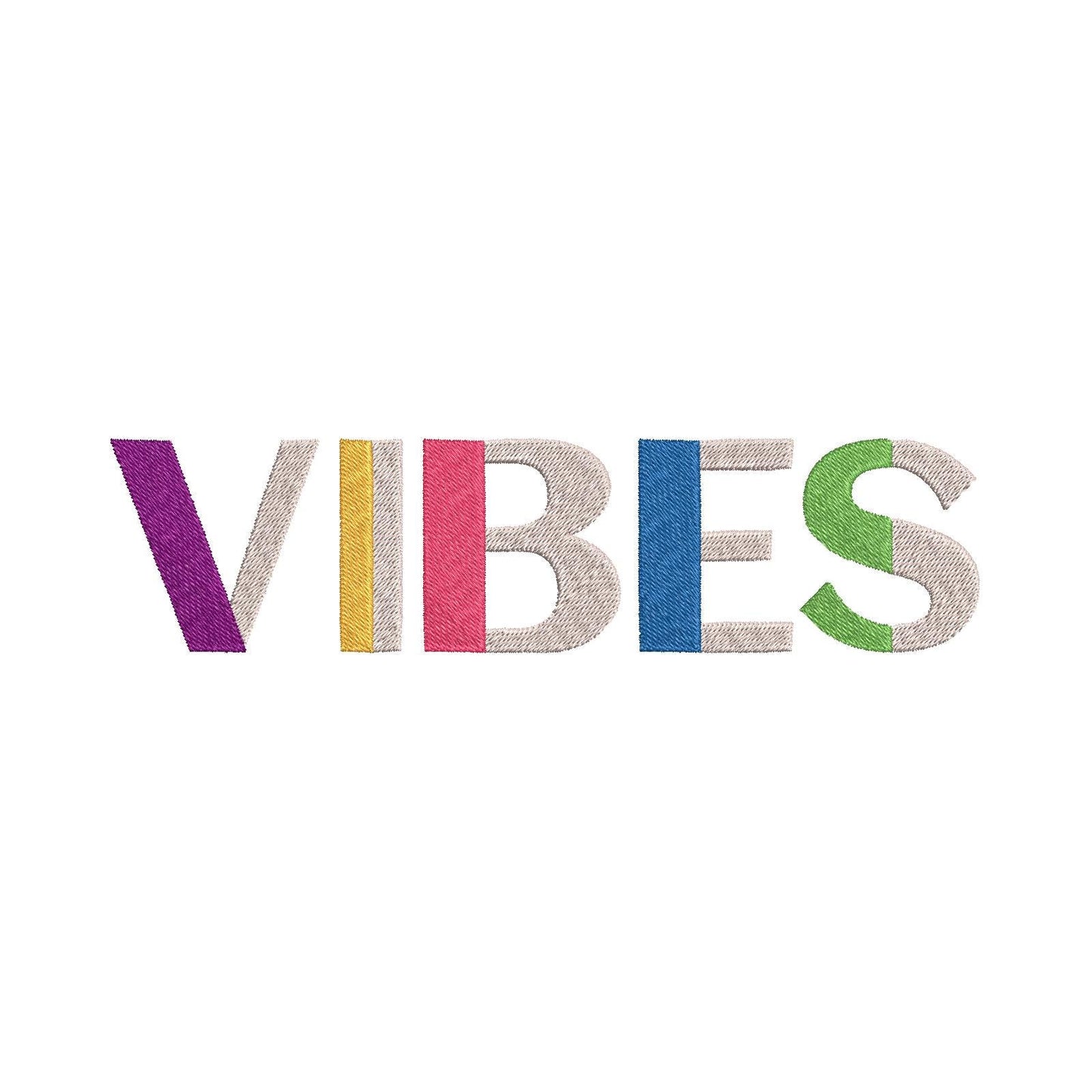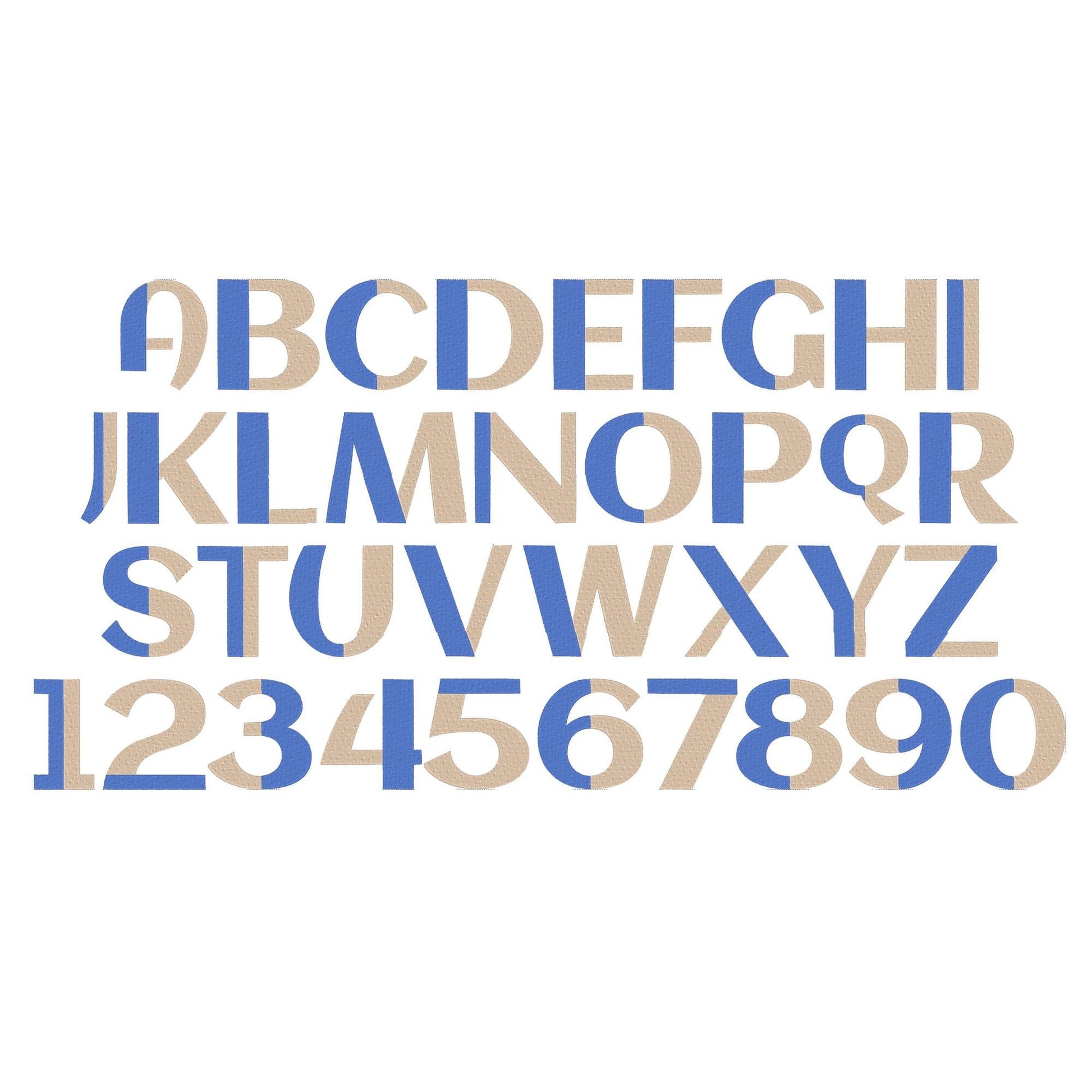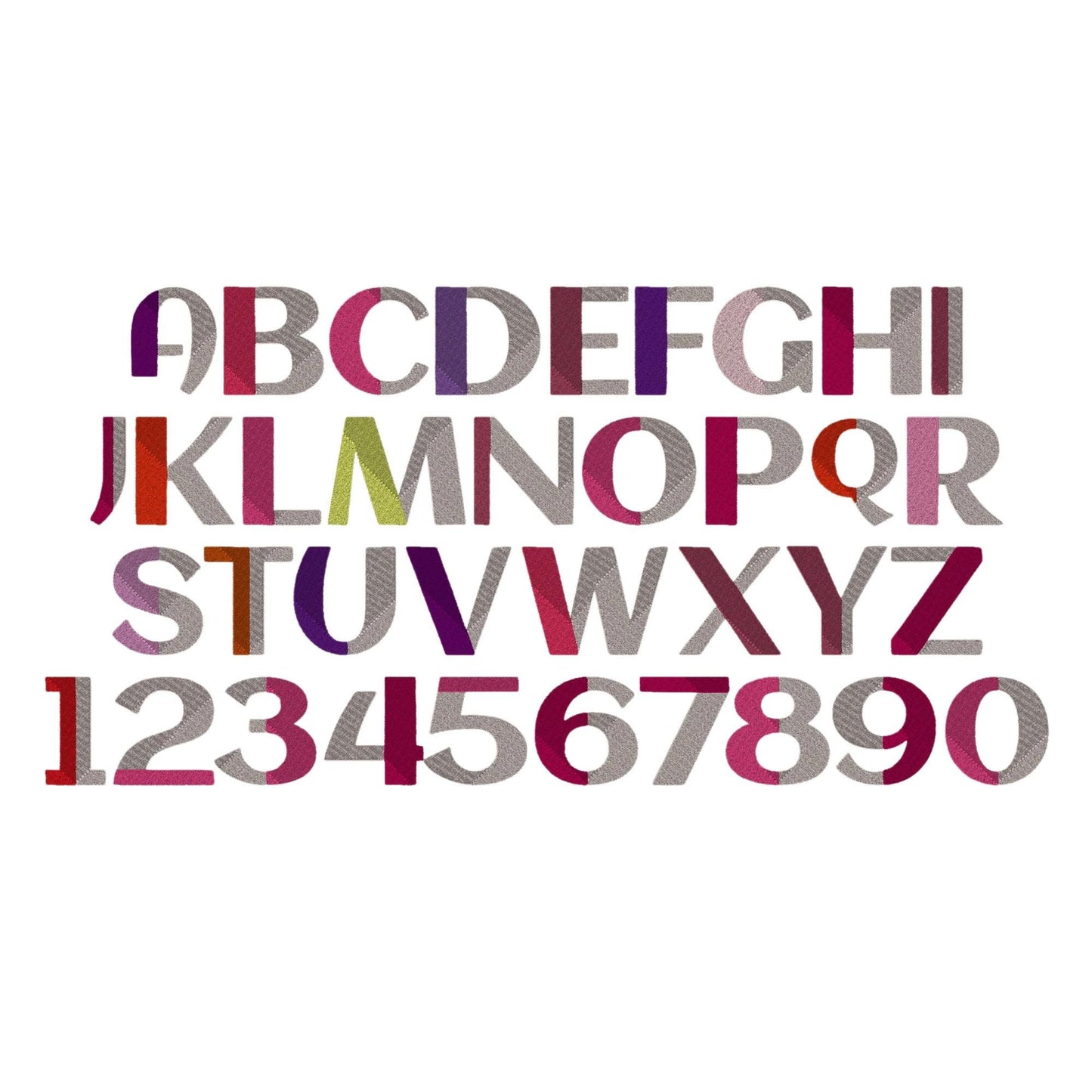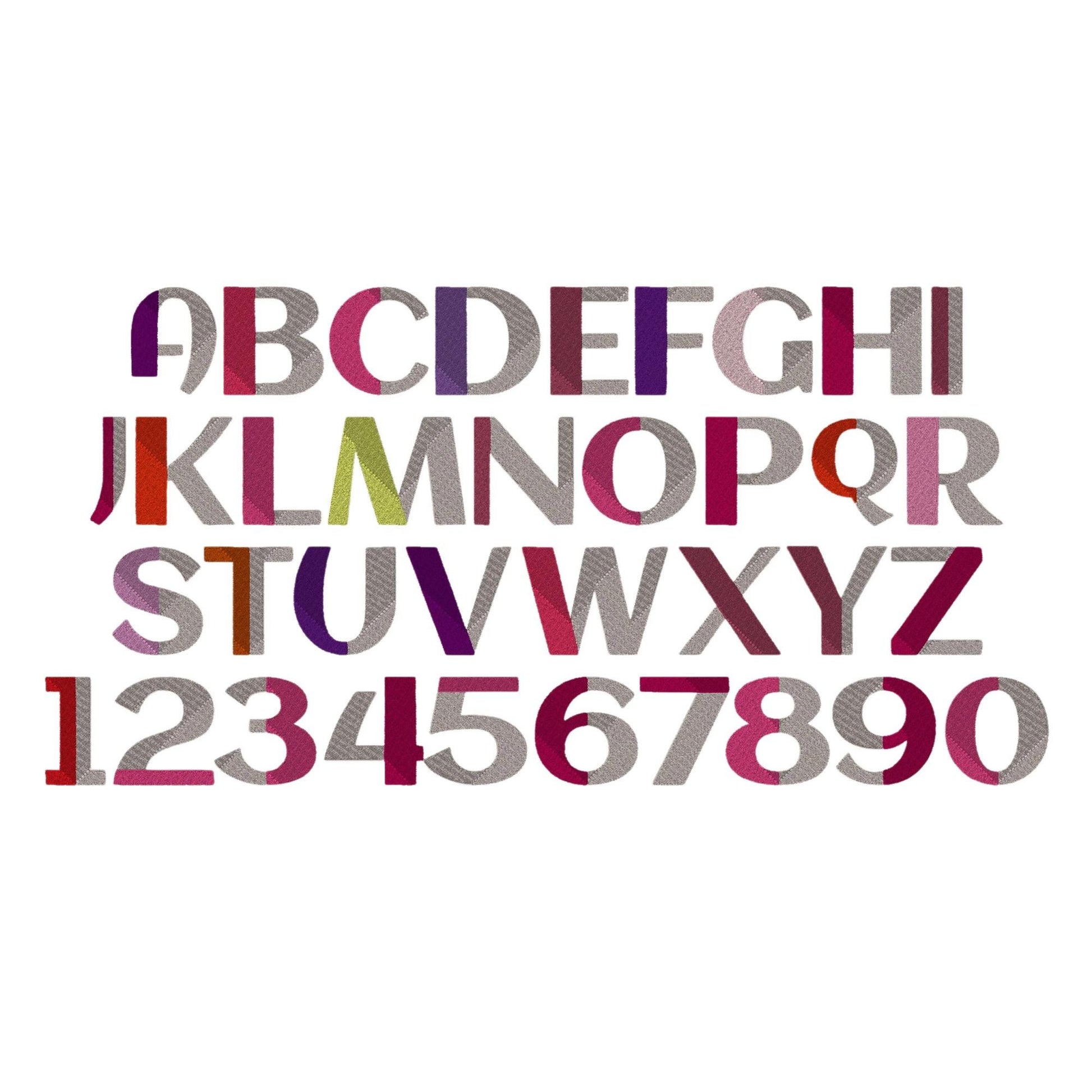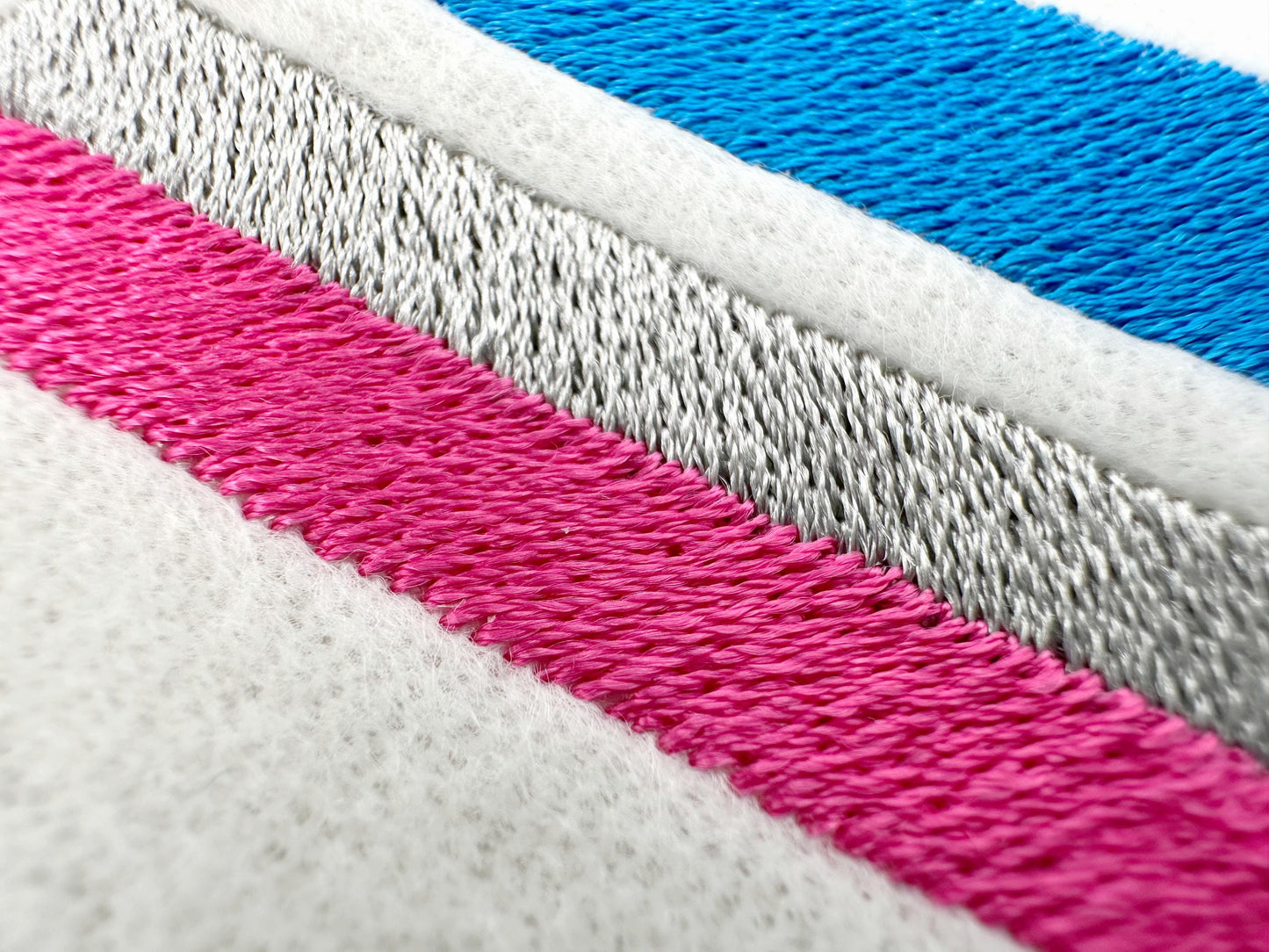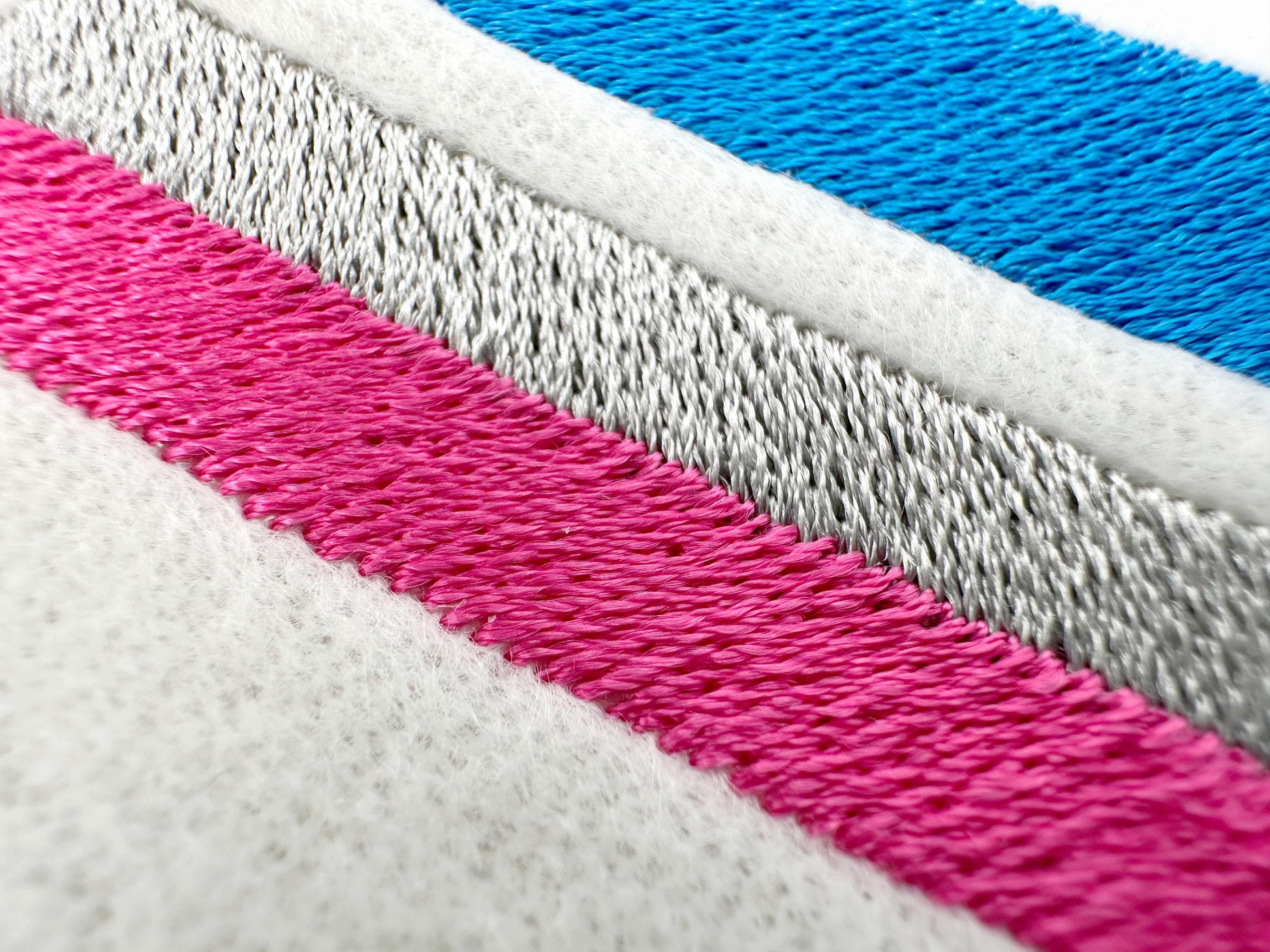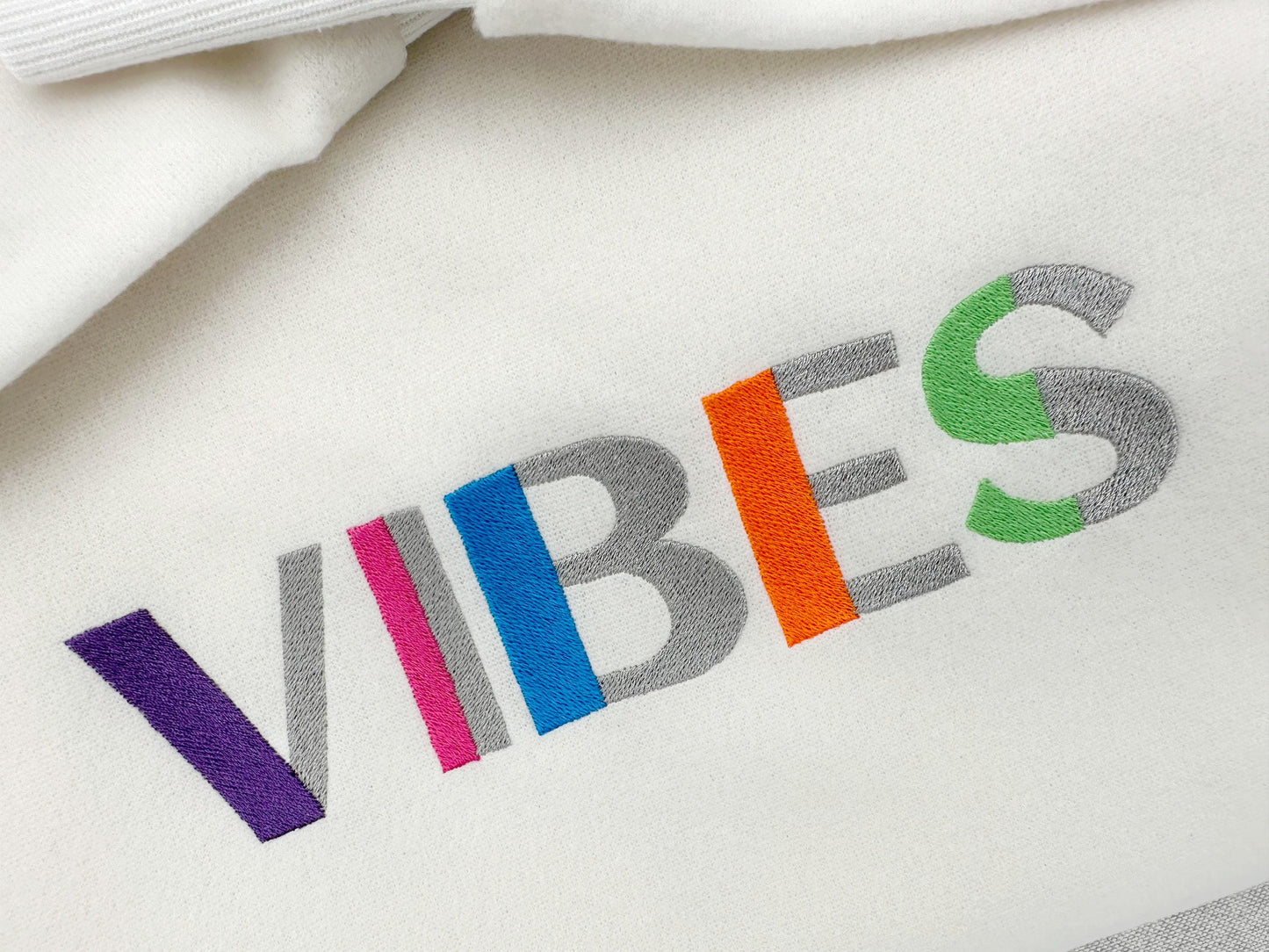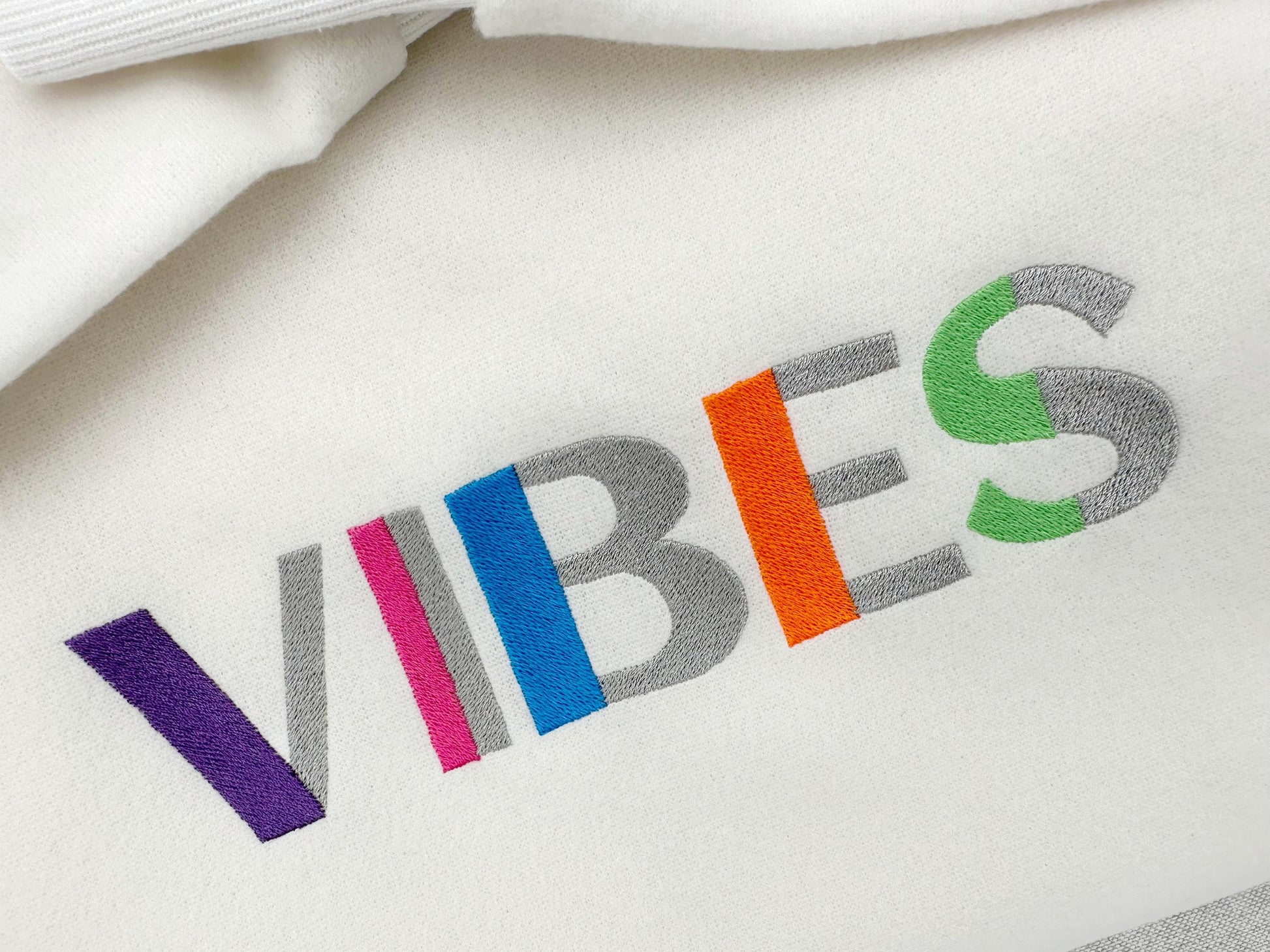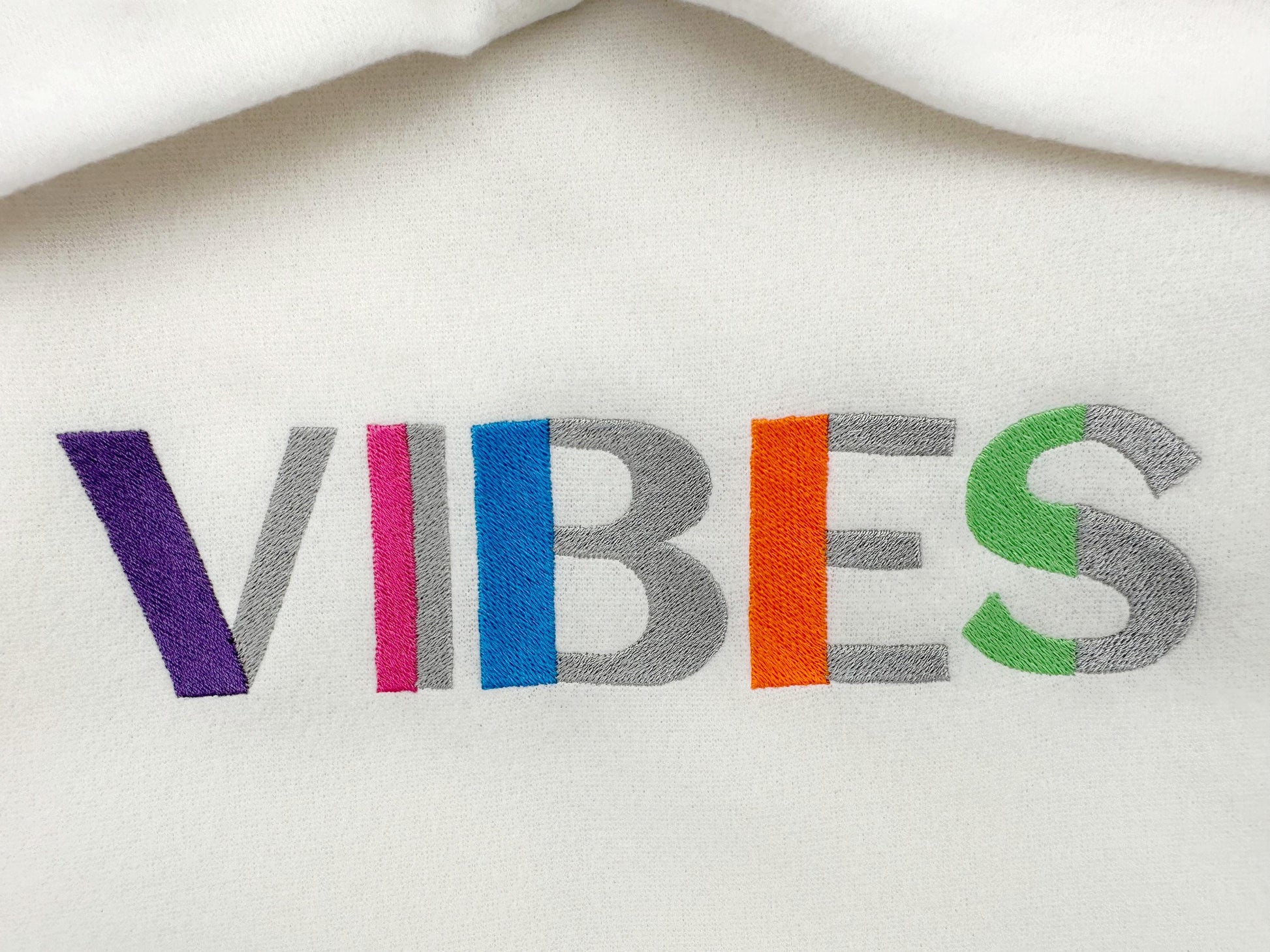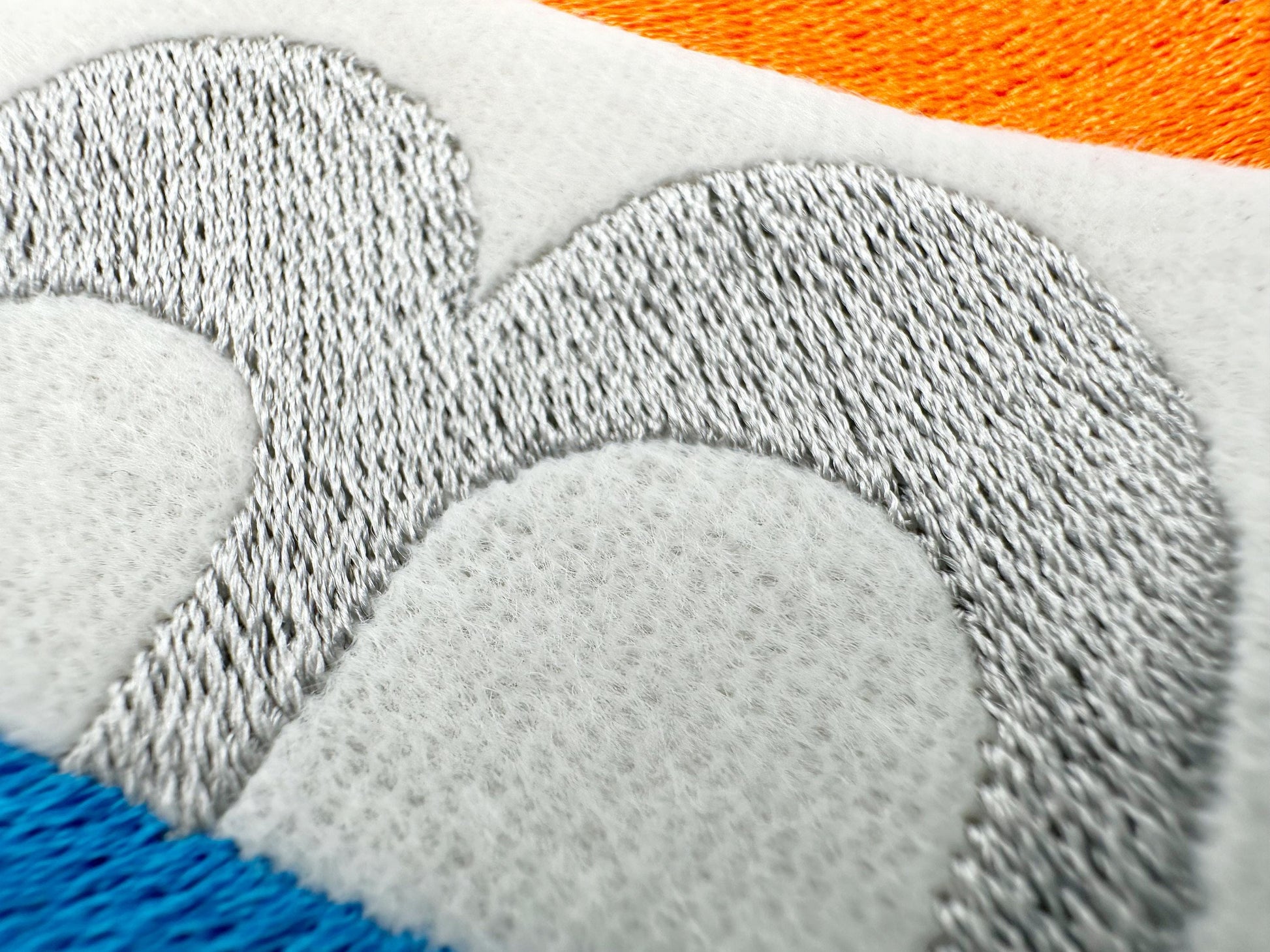
Bold Block Split Font
The letters come in seven sizes: 1.5, 2, 2.5, 3.3, 3.5, 4 and 5 inches. Each fill stitch letter is split into two colors. Includes uppercase letters A to Z and numbers 0 to 9.
- Bold duotone split block font, fill stitch
- Uppercase A to Z, numbers 0 to 9
- 7 sizes, 1.5 to 5 in